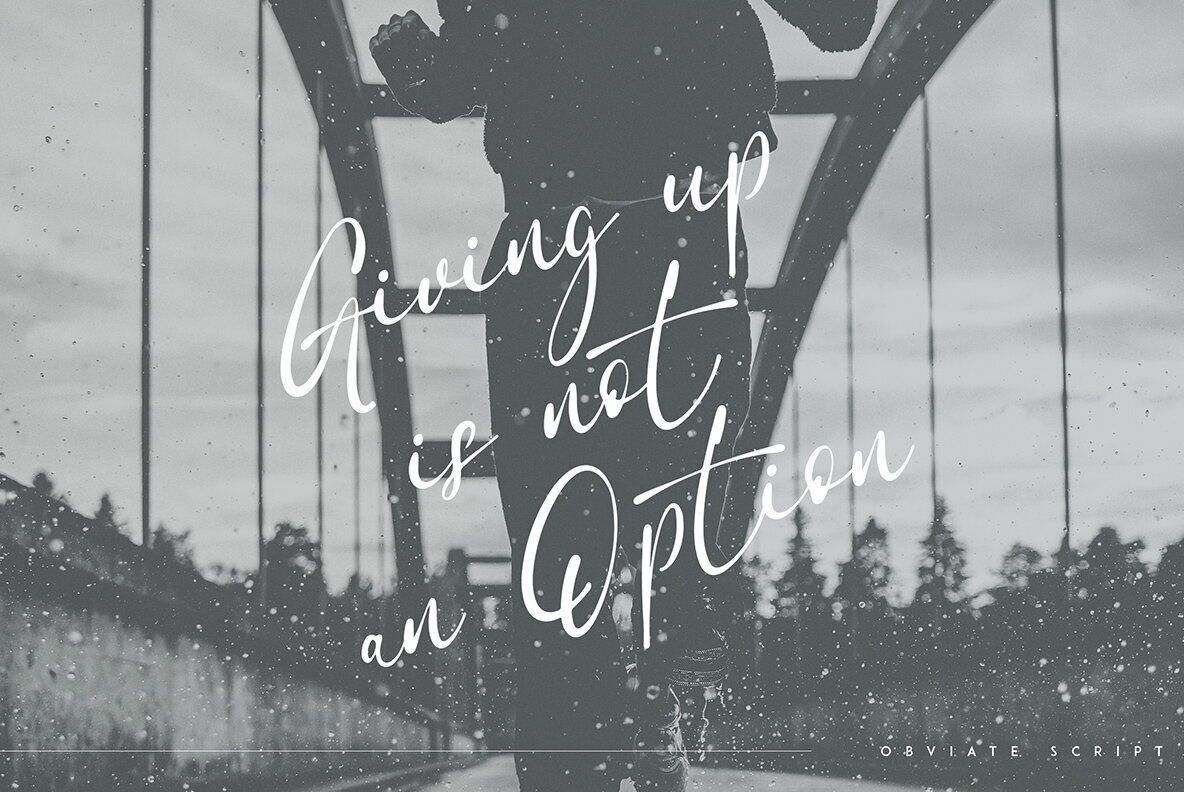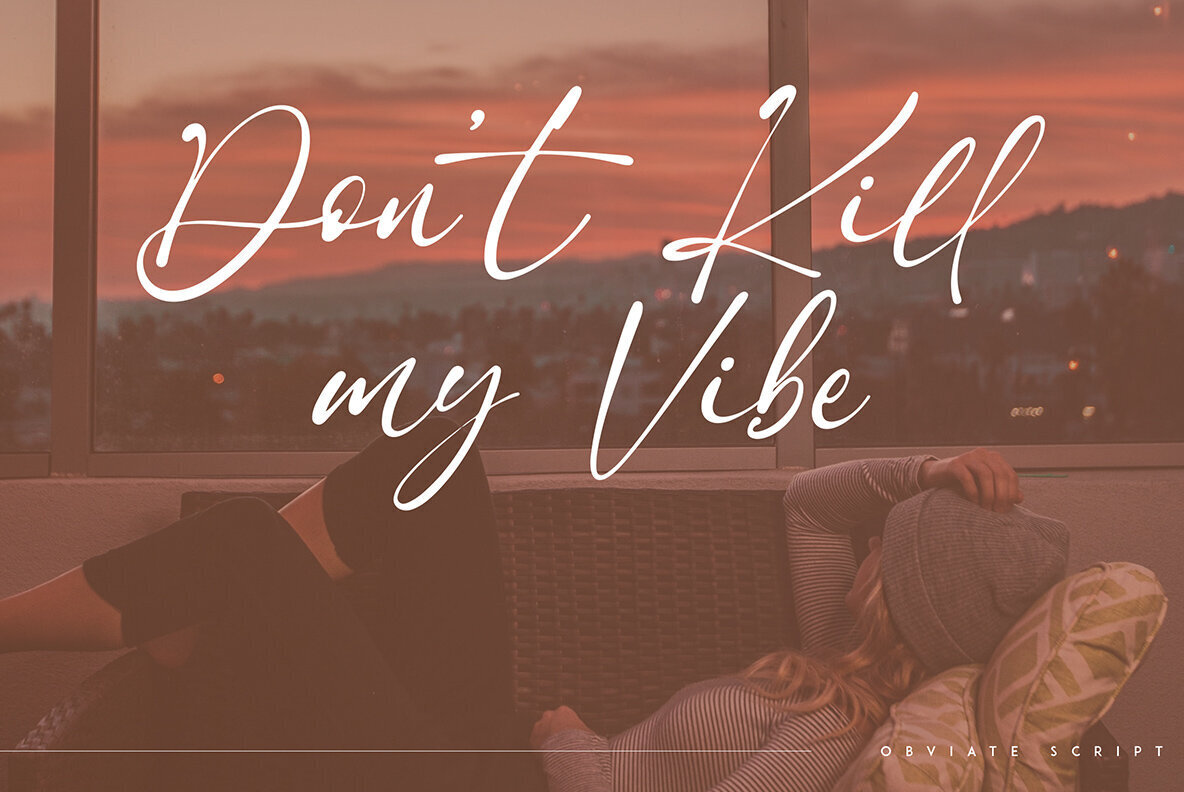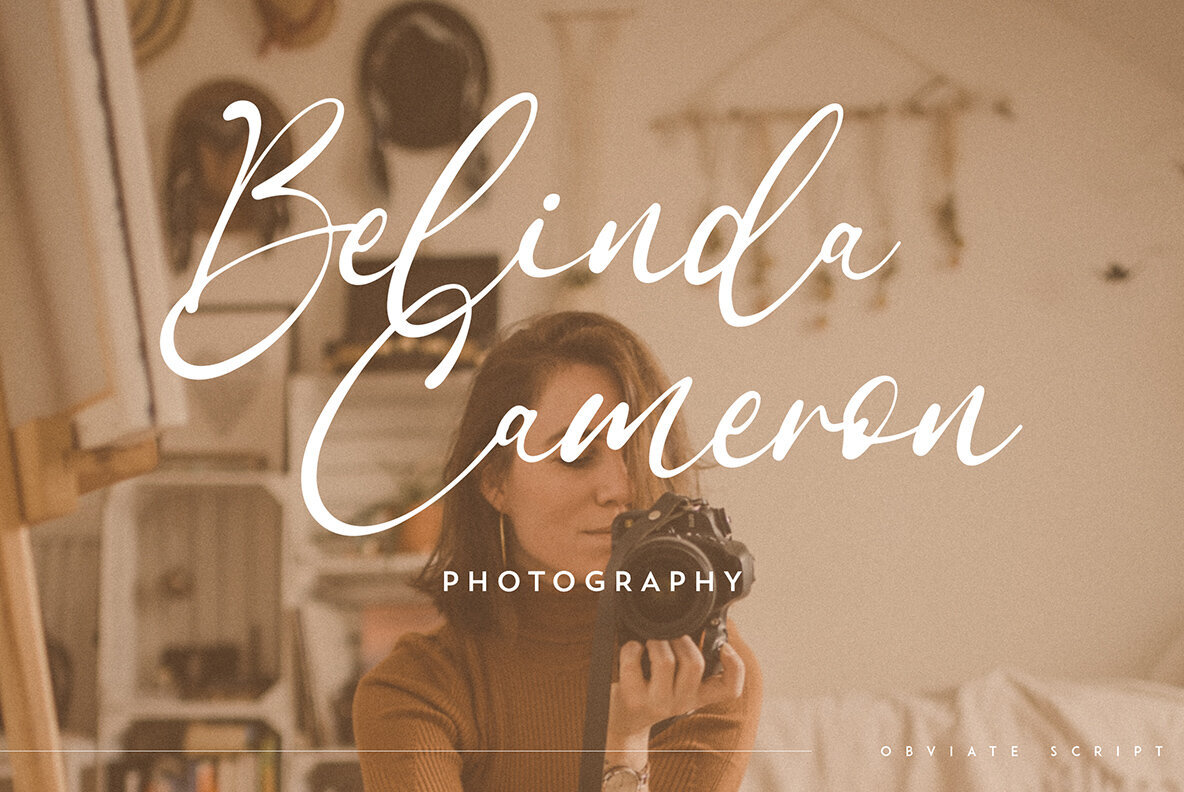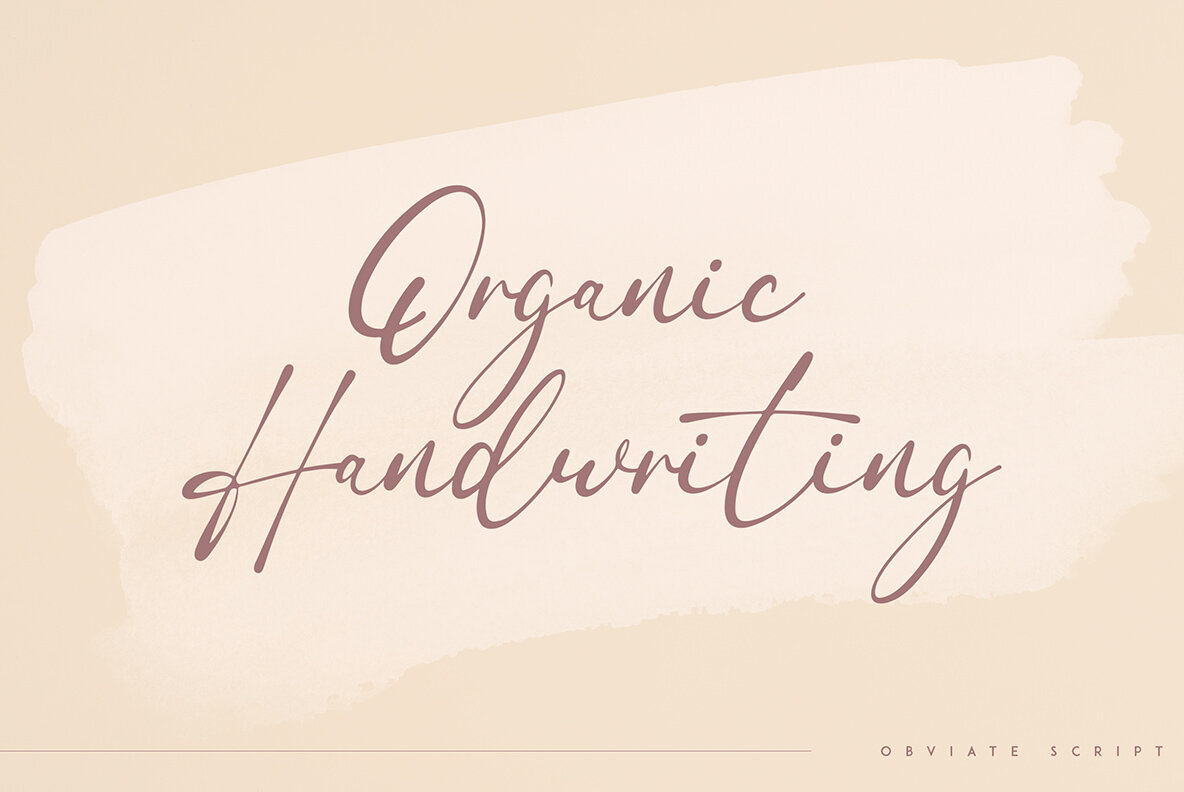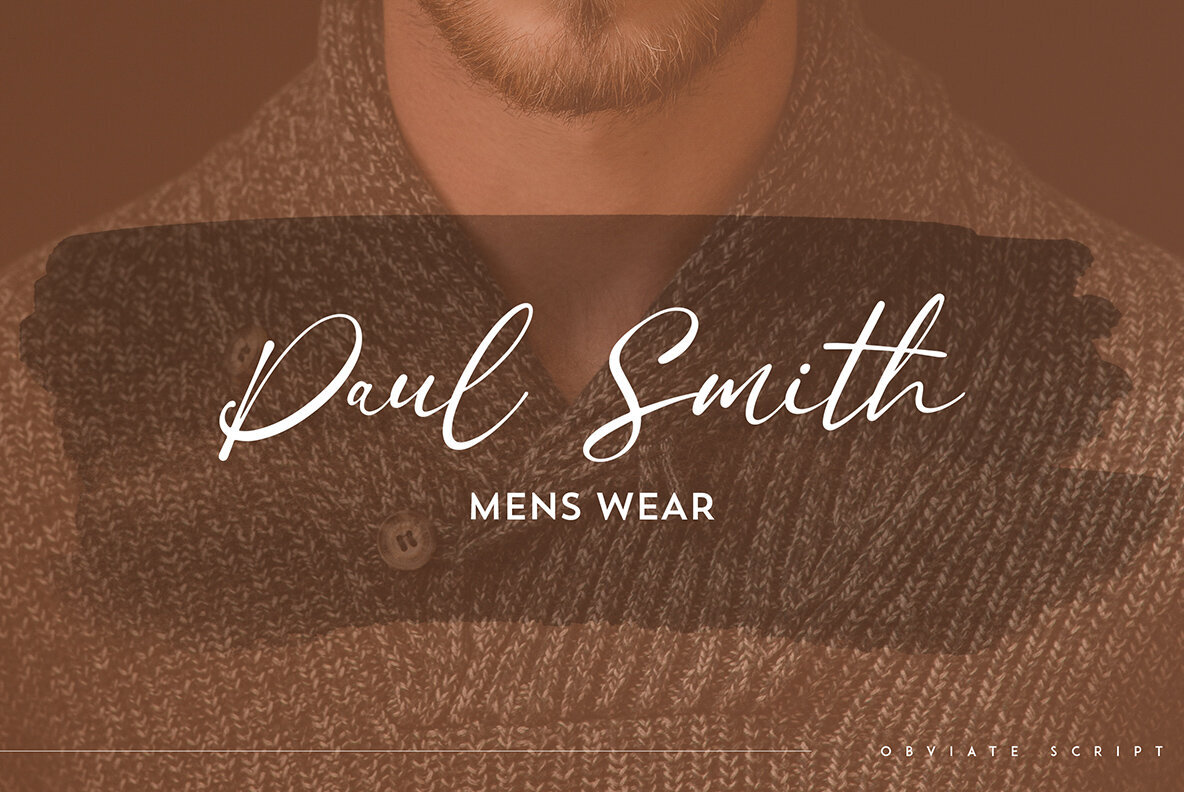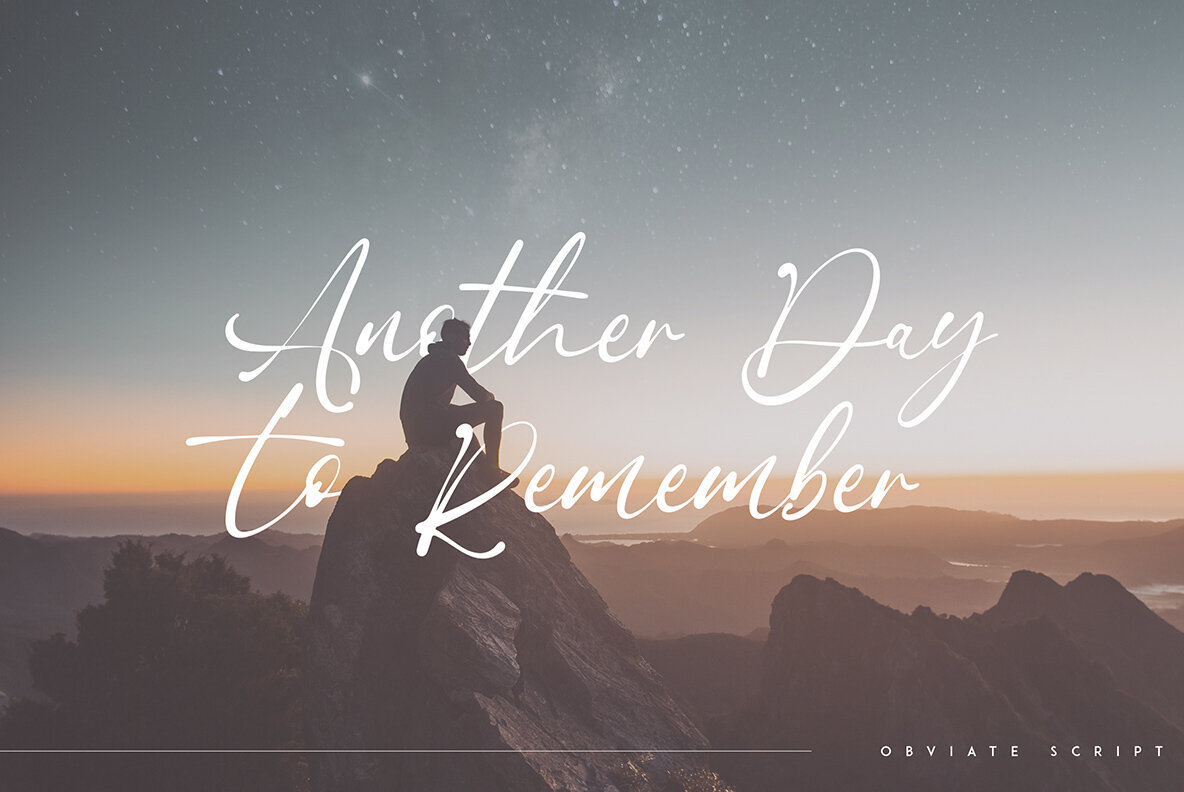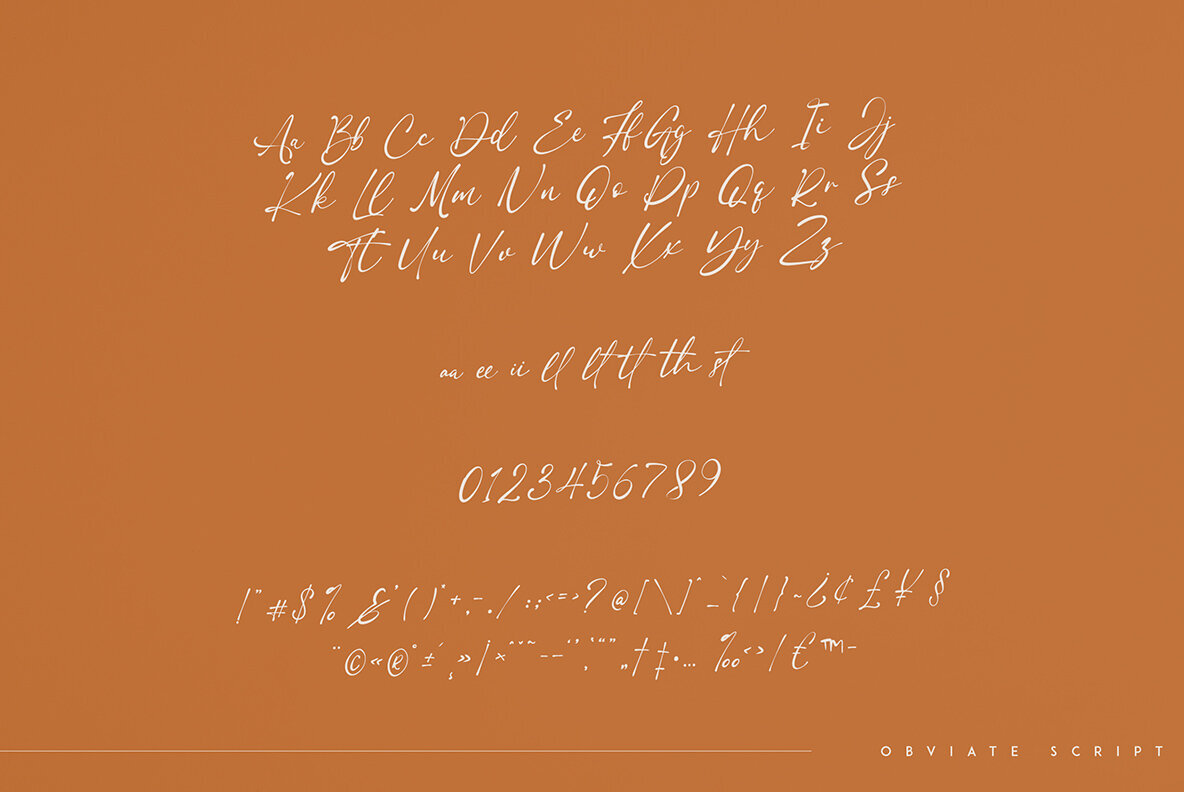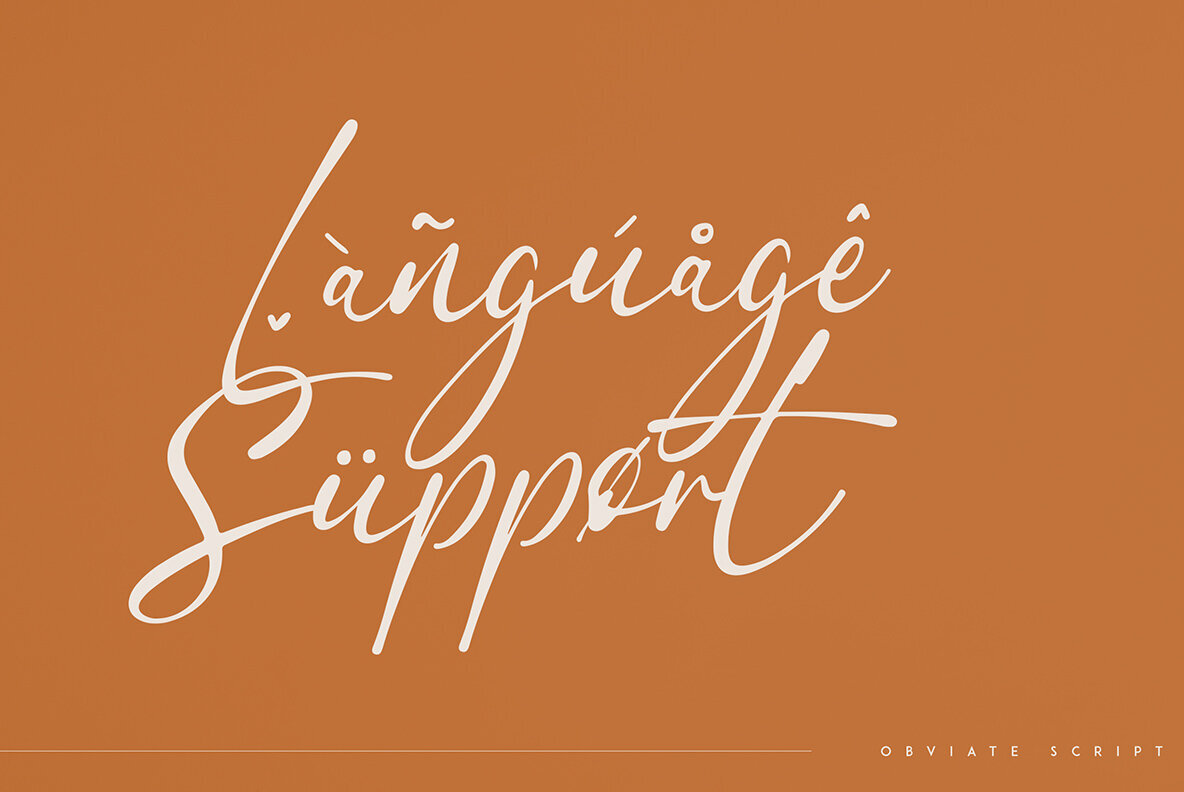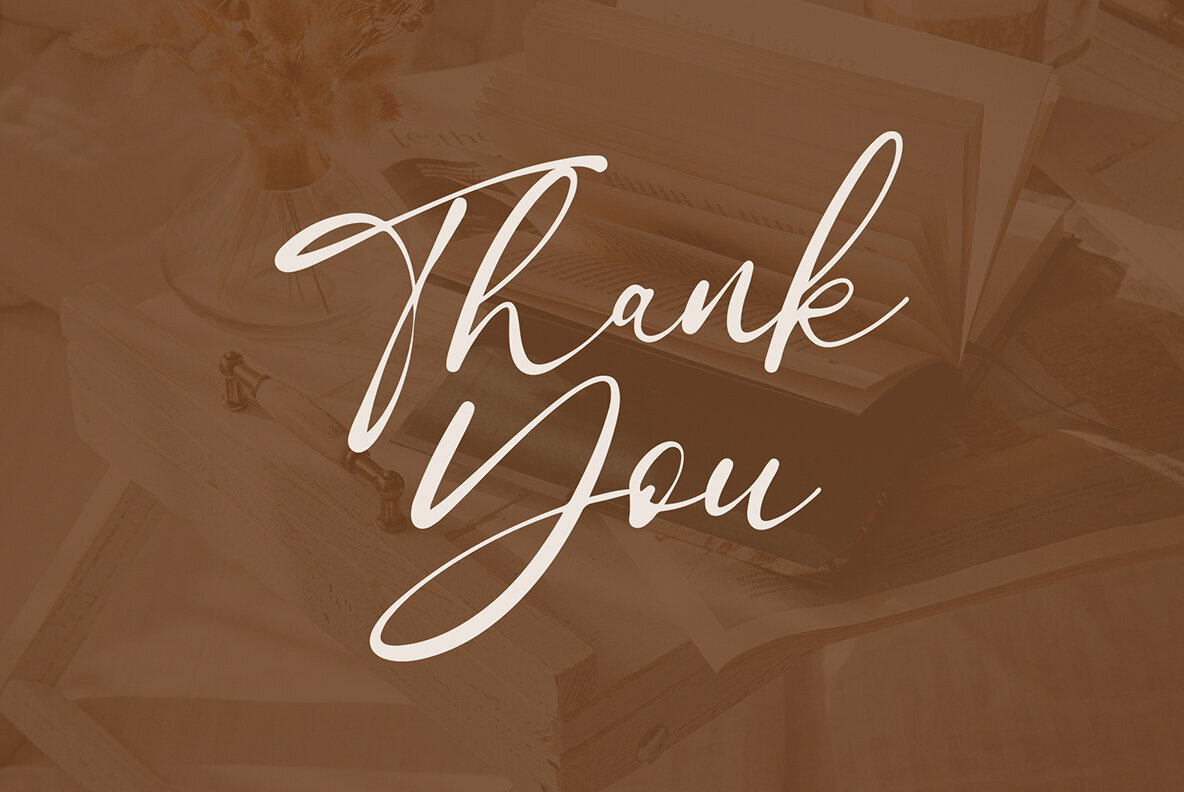
Obviate Font
Obviate Regular
Obviate emerges as a fusion of organic and modern script, distinguished by its array of ligature glyphs and multilingual capabilities. This font offers immense versatility, performing equally well in both large and small sizes, making it a fitting choice for various design contexts. Perfectly suited for branding projects, Obviate effortlessly complements home-ware designs, product packaging, and magazine headers. Additionally, it serves as an elegant text overlay for background images, enhancing visual appeal without overwhelming the viewer. Features:Obviate: A Versatile Organic Script Font